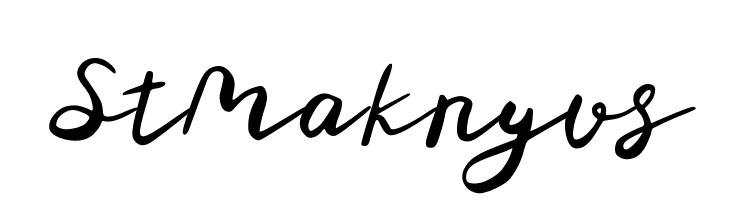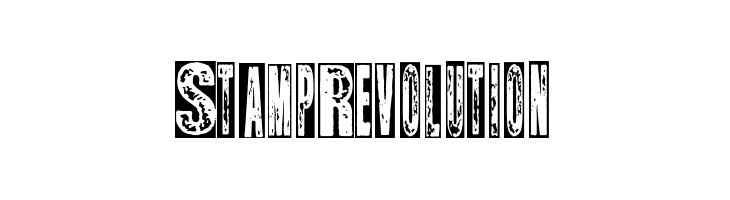
A cursive, handwritten script font.
A bold, geometric font with a modern, futuristic style.
A decorative font inspired by intricate stained glass designs.
A modern, sans-serif font with clean lines and a geometric touch.
A modern sans-serif font with clean lines and geometric influences.
A bold, geometric sans-serif font with a modern and clean design.
A modern, outlined font with a sleek, angular design perfect for dynamic headlines.
A bold, textured font with a distressed, artistic style.